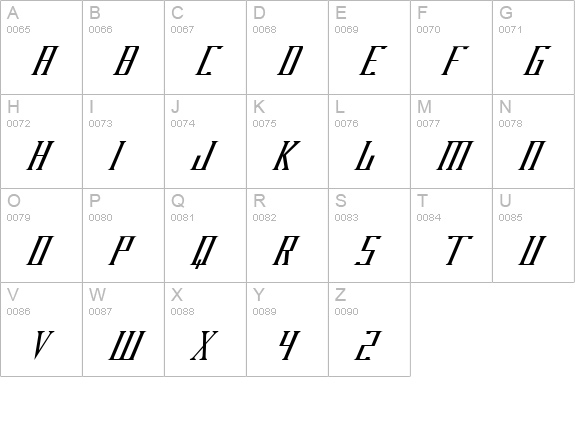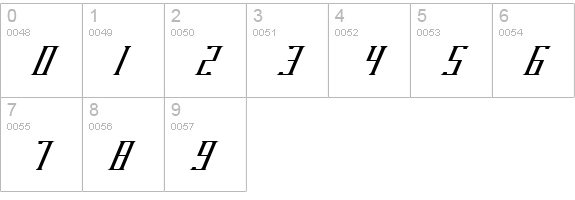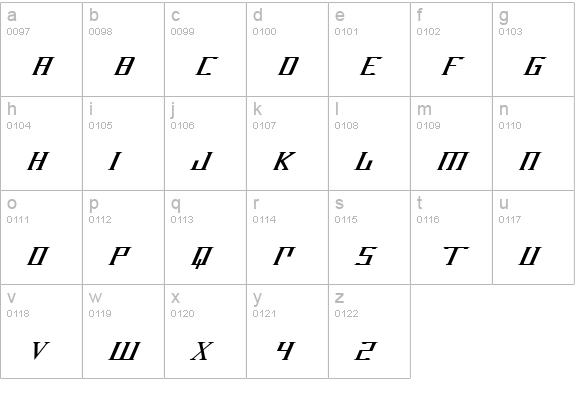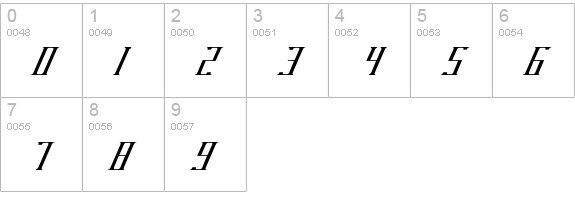
DarkWind Condensed Italic is a distinctive, condensed-width, italic variant in the DarkWind typeface family \xE2\x80\x94 well suited to design and typography projects.
DarkWind Condensed Italic font is a sleek and modern typeface designed to make a bold statement. Its sharp angles and italicized style give it a sense of dynamism and energy, perfect for projects that demand attention. The condensed design allows for efficient use of space without sacrificing readability. This font is versatile and can be used for a variety of design projects, from branding and logos to posters and headlines. Its unique combination of elegance and edginess sets it apart from other fonts, making it a standout choice for designers looking to make an impact. Best of all, DarkWind Condensed Italic font is available for free download at FontsMarket.com. This means you can access this striking typeface without any cost, making it a valuable addition to your font library. Don't miss out on the opportunity to enhance your designs with this stylish and impactful font.